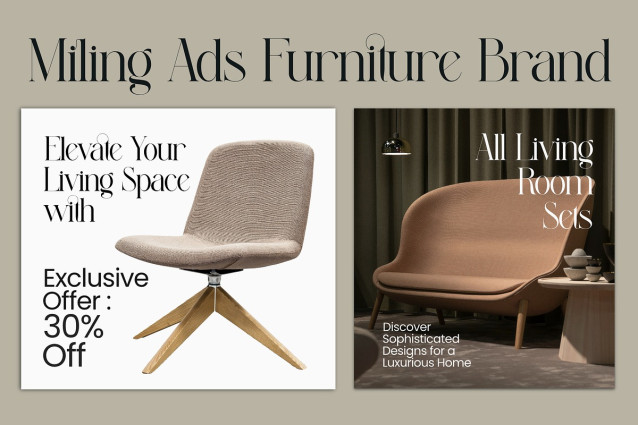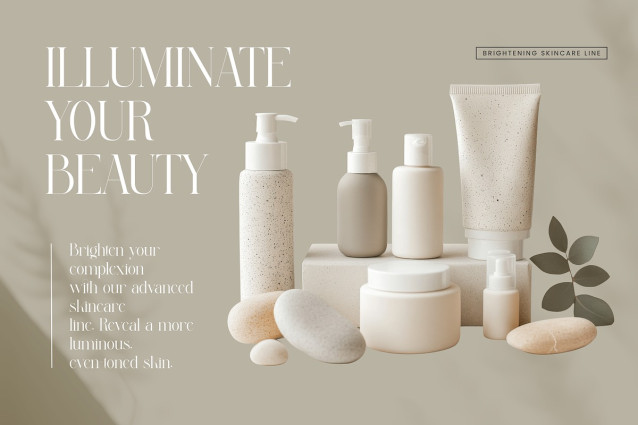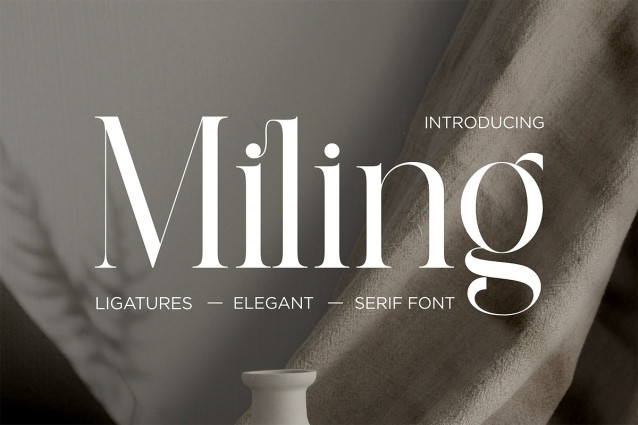
Miling Font
Miling Font is a contemporary serif typeface that seamlessly blends minimalist design with crisp detail. It draws inspiration from the clean lines of modernity and the precision of industrial aesthetics, resulting in a refined yet striking typographic personality.